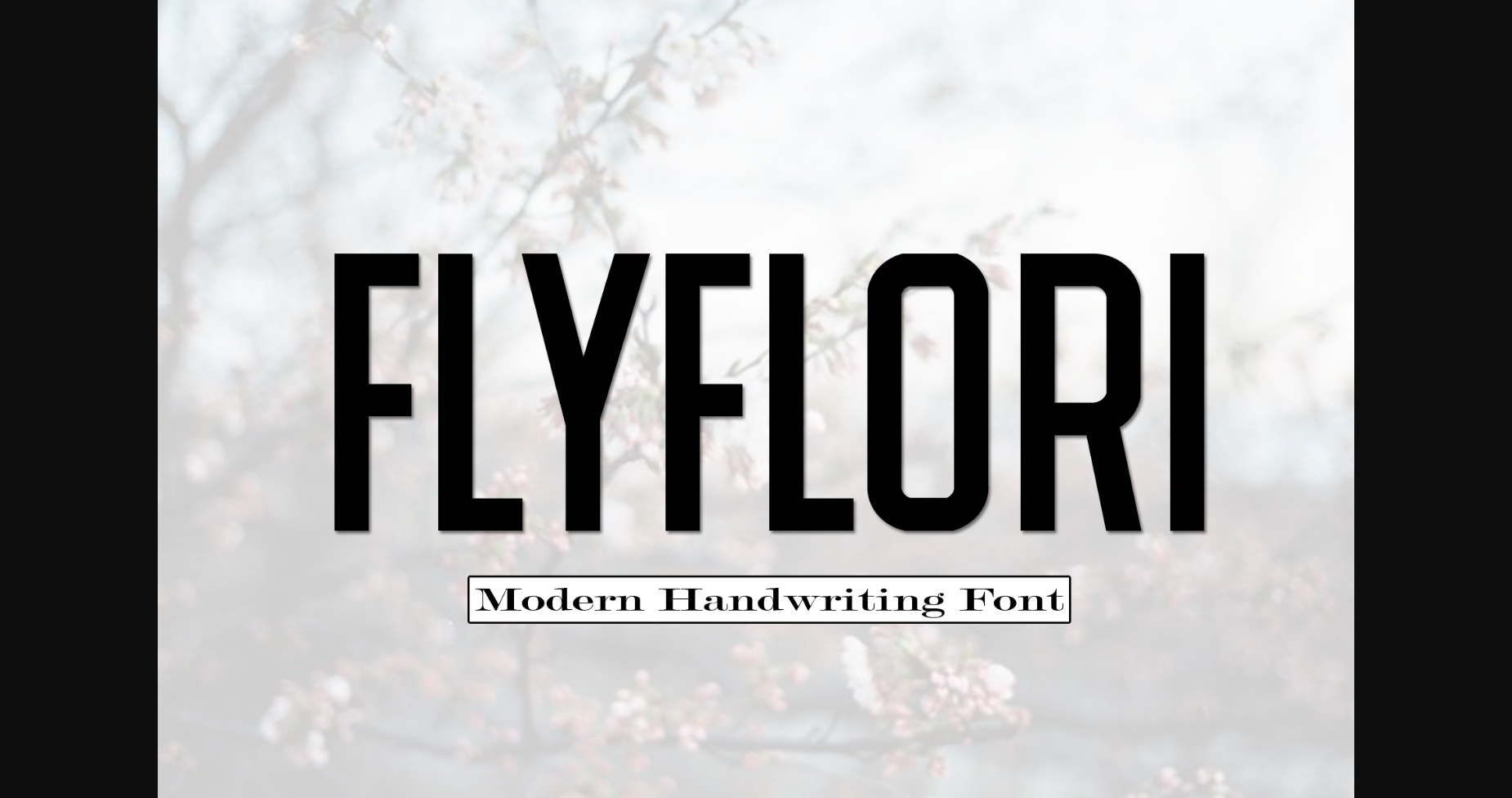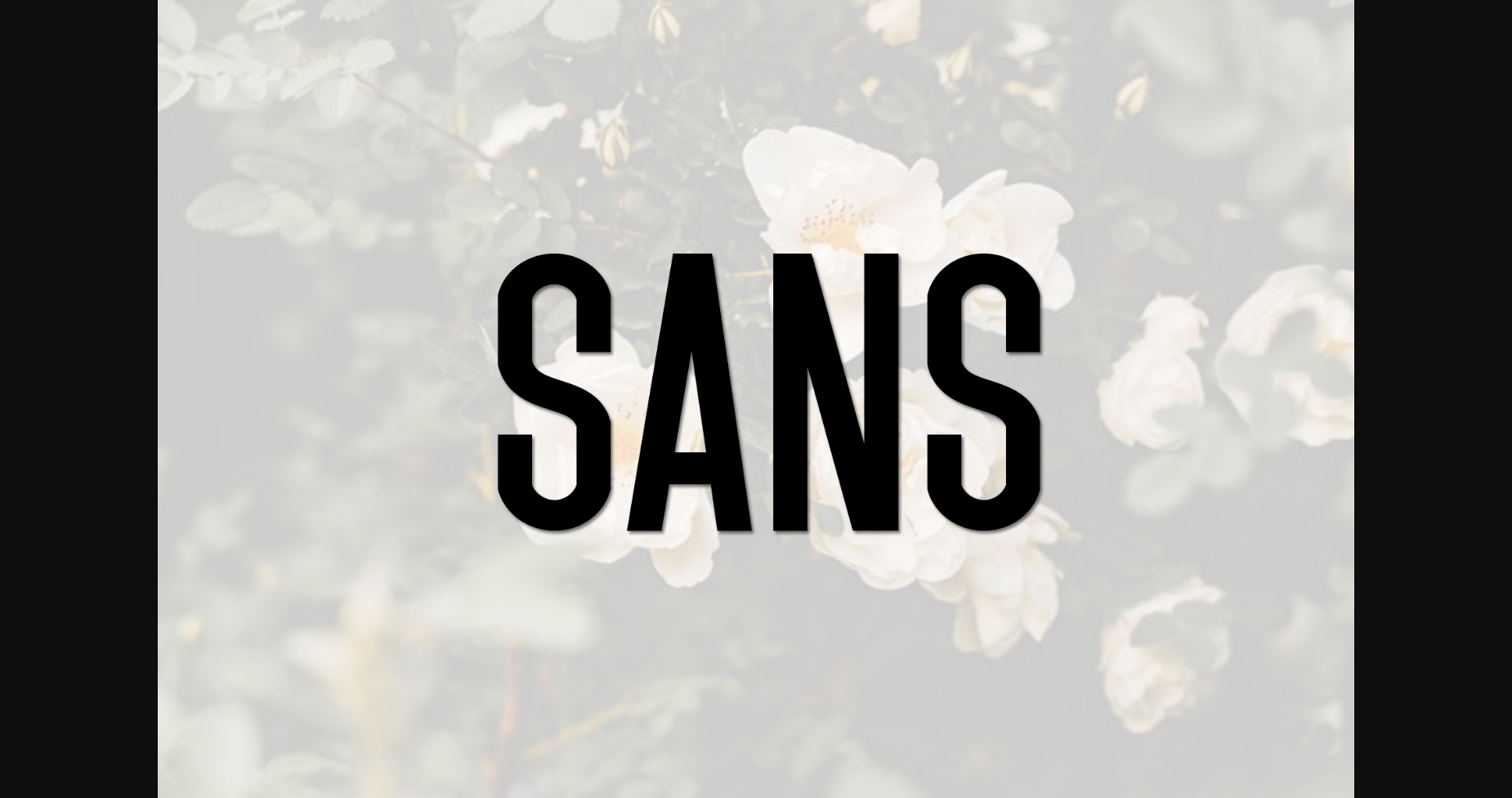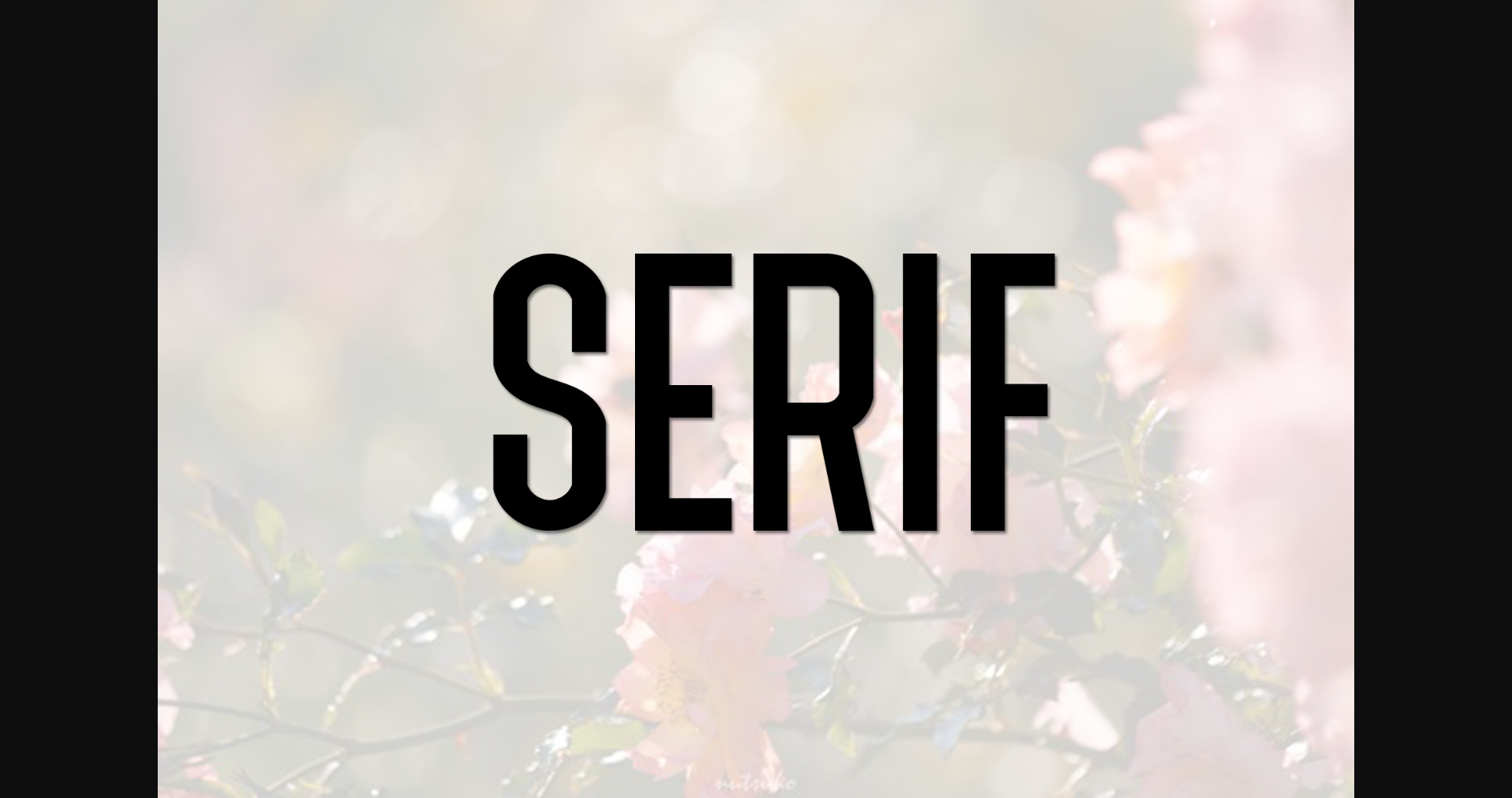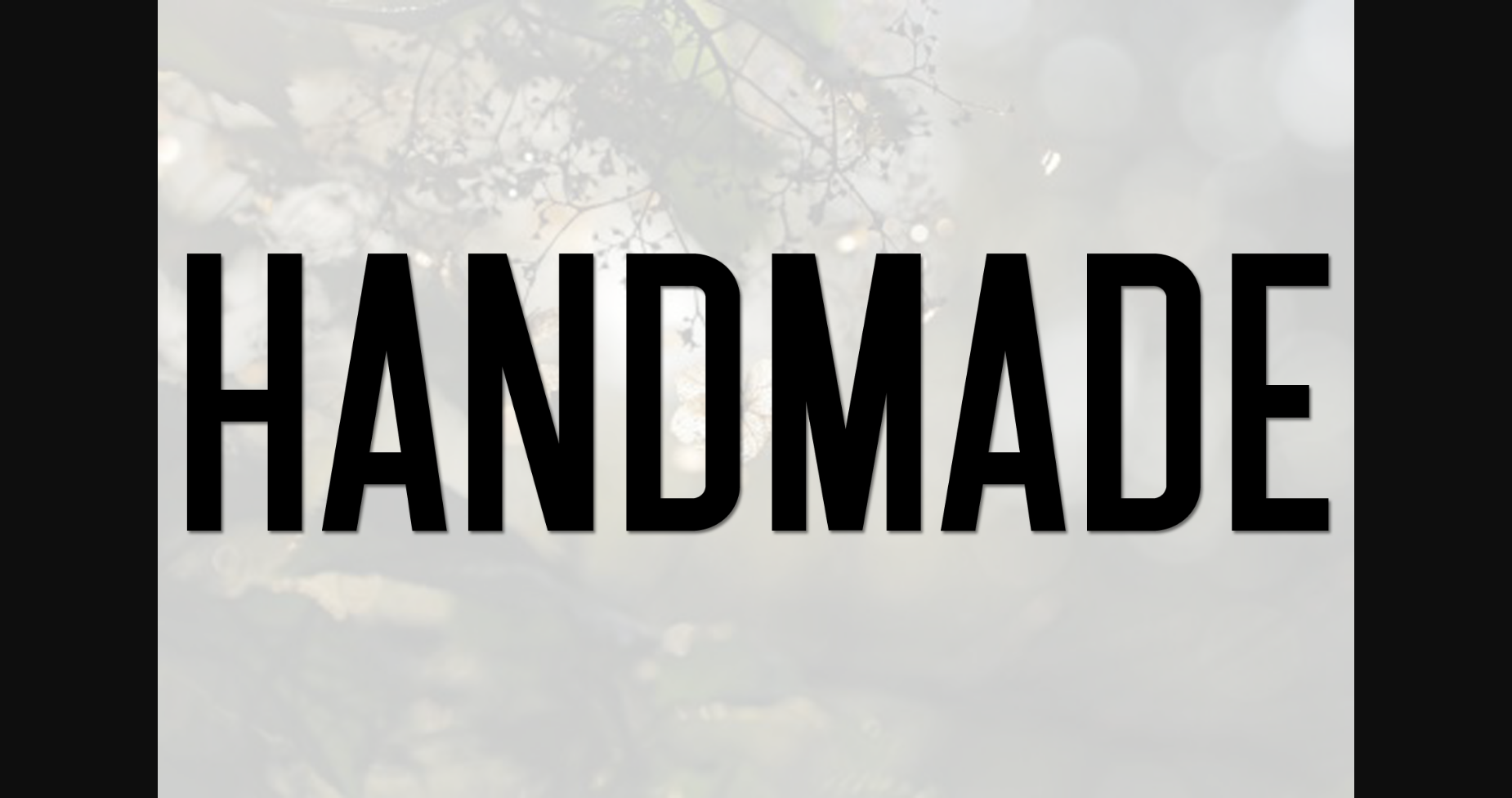
HomeSans Serif FontsFlyflori Font Sans Serif Fonts Flyflori Font FacebookXPinterestWhatsApp 1 of 6 ... Flyflori Font Poster 2... Flyflori Font Poster 3... Flyflori Font Poster 4... Flyflori Font Poster 5... Flyflori Font Poster 6... About Flyflori Font Flyflori is a stylish and very elegant sans-serif font. It looks impressive on wedding invitations, thank you cards, quotes, greeting cards, logos, business cards, and any other design that calls for a handwritten touch. DOWNLOAD NOW People also explored Coflocks Script Font Urbano Font Cartoon US Presidents Dingbats Font Look Jeab Lo Font Emylia Script Font Butterfly Font Puisi Adinda Prison Pro Simple Master Font 359 0 TagsFlyflori Font Previous articleNasi Goreng FontNext articleKelimantan Font LEAVE A REPLY Cancel reply Comment: Please enter your comment! Name:* Please enter your name here Email:* You have entered an incorrect email address! Please enter your email address here Website: Save my name, email, and website in this browser for the next time I comment. Personal Use Free Eloquence Personal Use Free Read more about this font Die Nasty Personal Use Free Read more about this font Winter Soldier Personal Use Free Read more about this font Engebrechtre Personal Use Free Read more about this font BLOG How to Install and Use Fonts on Windows, macOS, and Web Projects How to Install and Use Fonts on Windows, macOS, and Web Projects Fonts are a crucial part of design and branding. Whether you’re designing a... Free Fonts Risk: Why Free Fonts Can Be Dangerous for Designers Fonts That Capture the Spirit of New York City Top 10 Handwritten Fonts That Elevate Your Designs